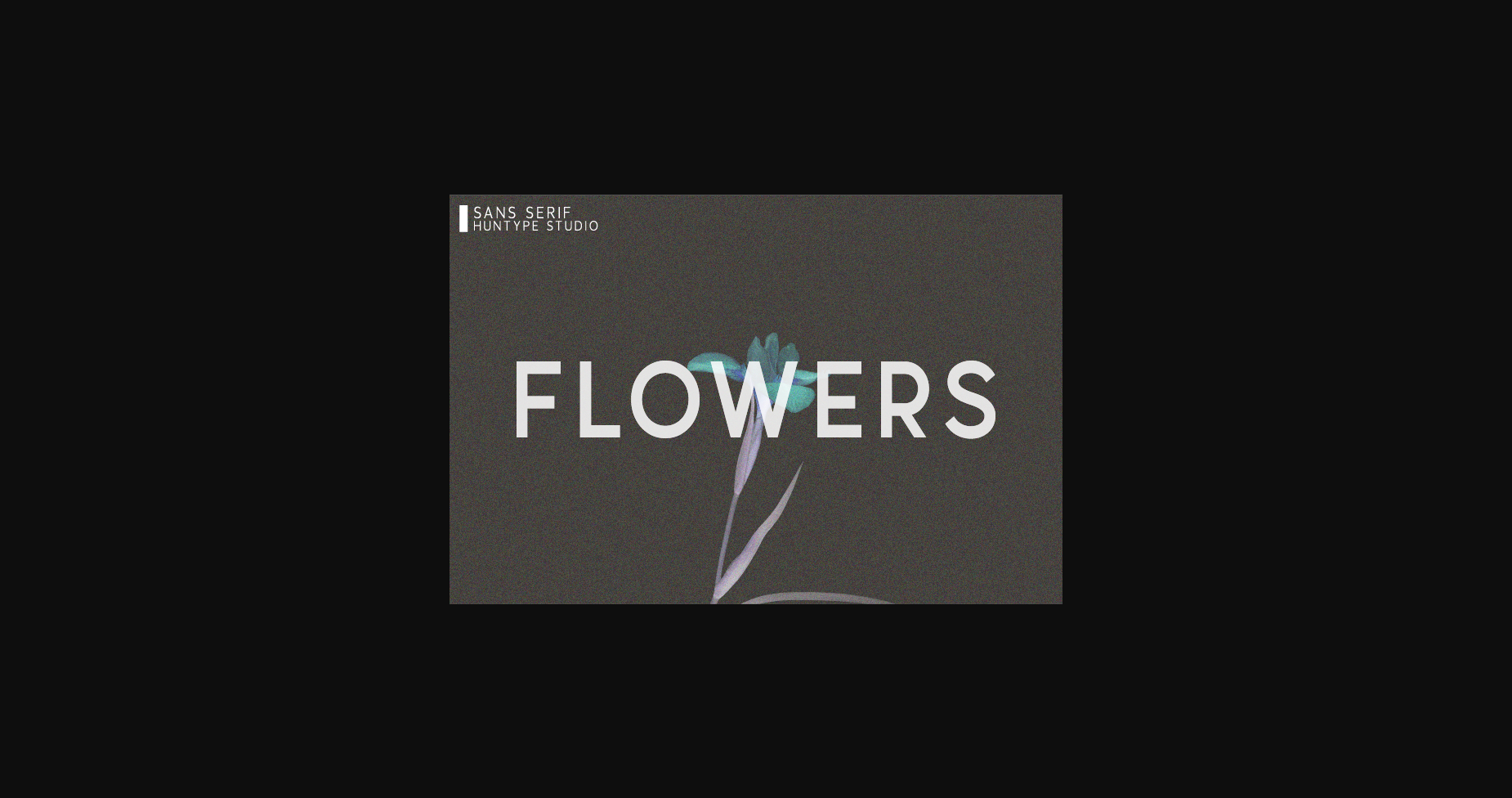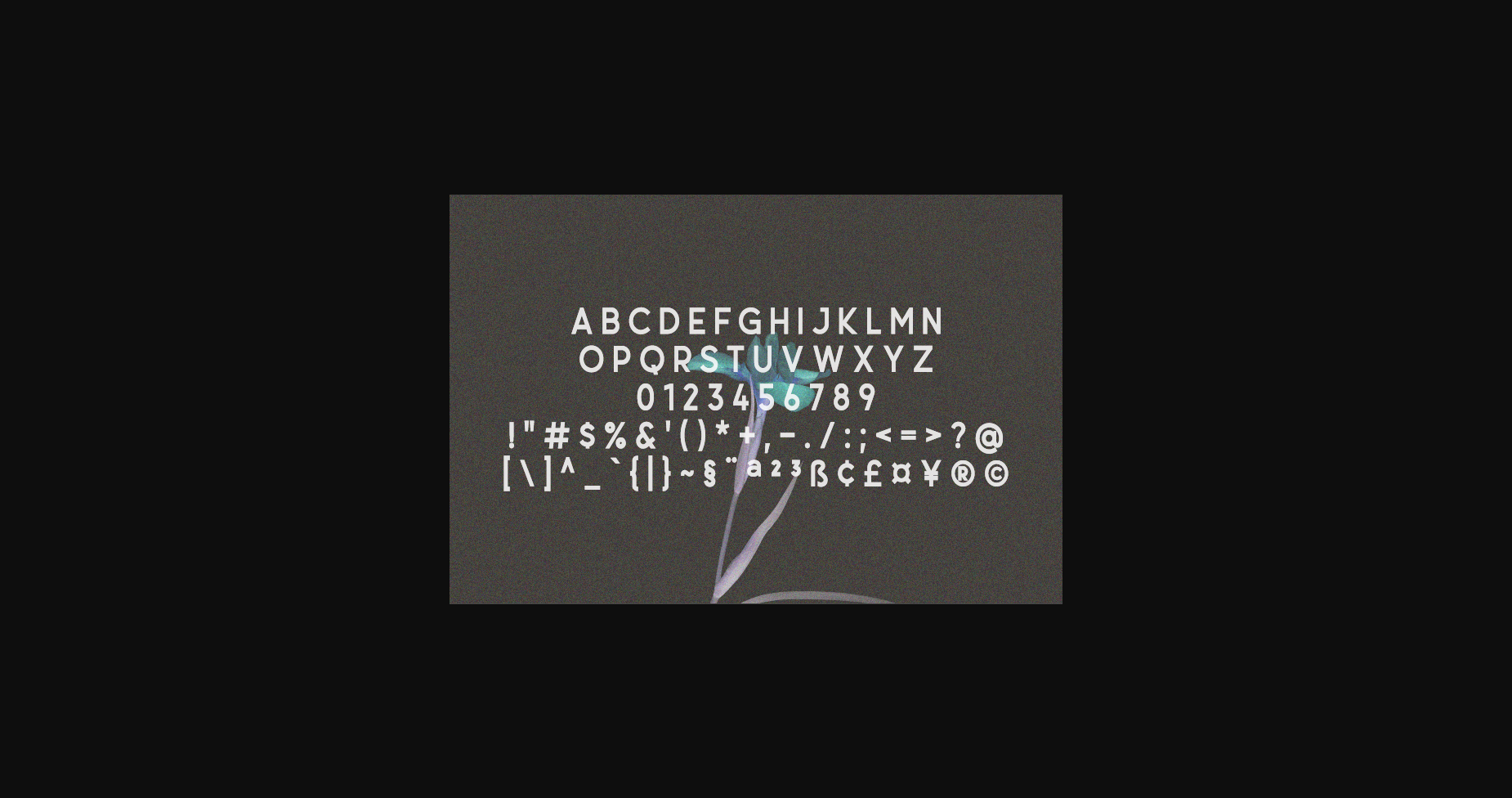
About Flowers Font
Flowers is a versatile sans serif font that looks great in just about any context. With smooth and clean lines and just a touch of contrast, this font works beautifully for logos, branding, and web headings.